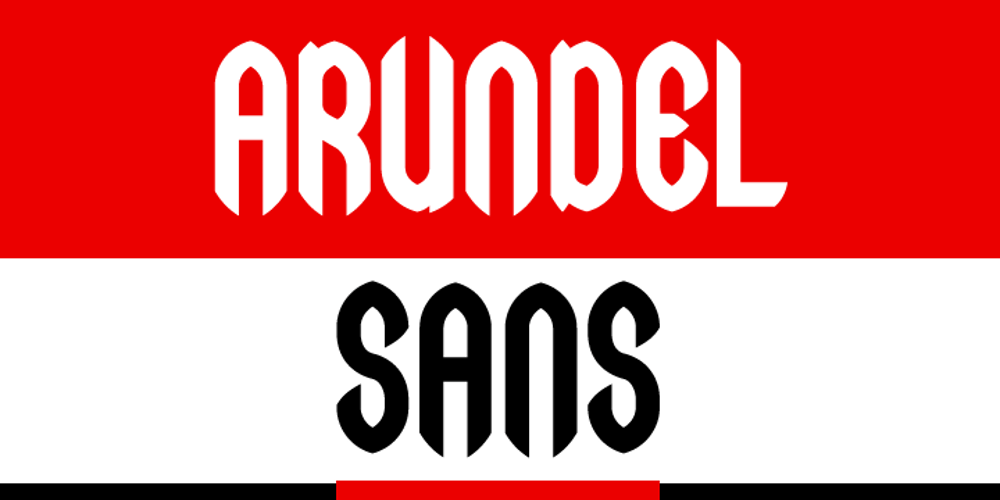
Arundel Sans Font Family was designed by Patrick Molloy and published by Rocket 88 Foundry. Arundel Sans contains 2 styles and family package options. The design of Arundel Sans was inspired by Arundel Castle in West Sussex, England. It has a strong vertical emphasis, with a solid, geometric feel. It is a quirky mix of medieval and modern. Arundel Sans is ideal for use as a distinctive headline or display font.